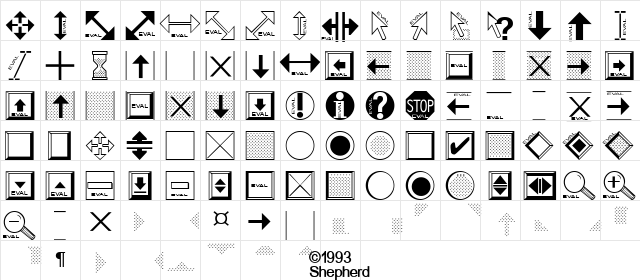
spWindows Normal
Design Context for spWindows Typeface
spWindows is a composed and adaptable typeface that performs quietly and consistently across a wide range of design contexts.